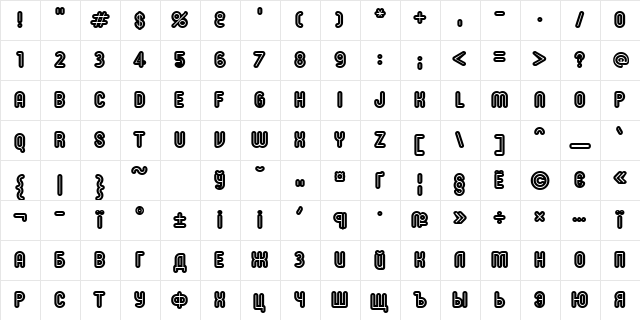
RonInset9 Extra Bold
Design Context for RonInset9 Typeface
RonInset9 takes a measured approach to typography — its balanced proportions and neutral character make it a reliable workhorse for both digital and print work. Its bold stroke weight gives it real presence on the page.